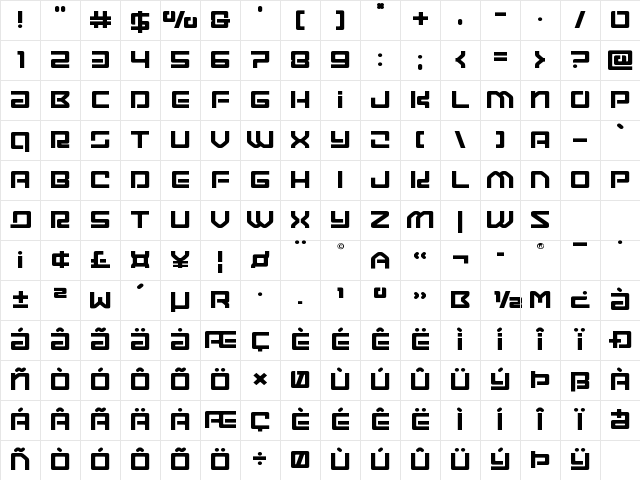
Complete Early Warning Expanded glyph index. Displaying only characters natively supported by Early Warning Expanded font.
Early Warning is a composed and adaptable typeface that performs quietly and consistently across a wide range of design contexts.